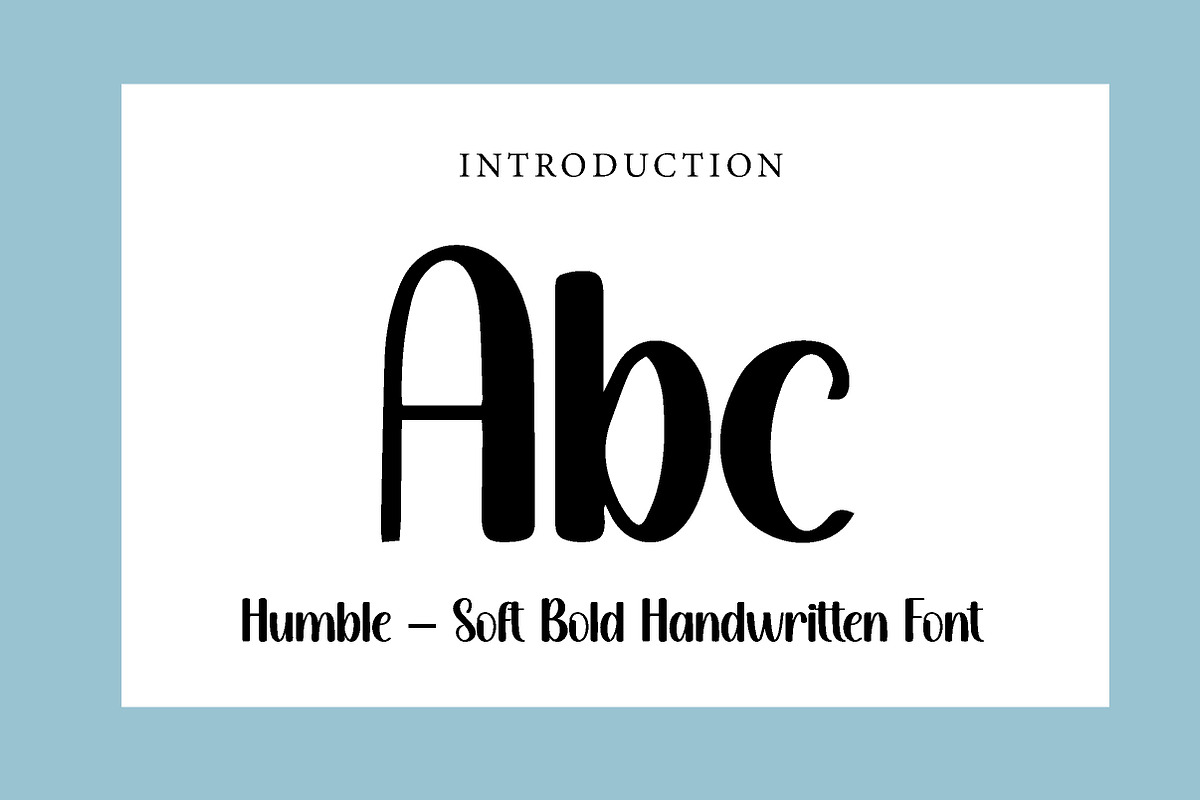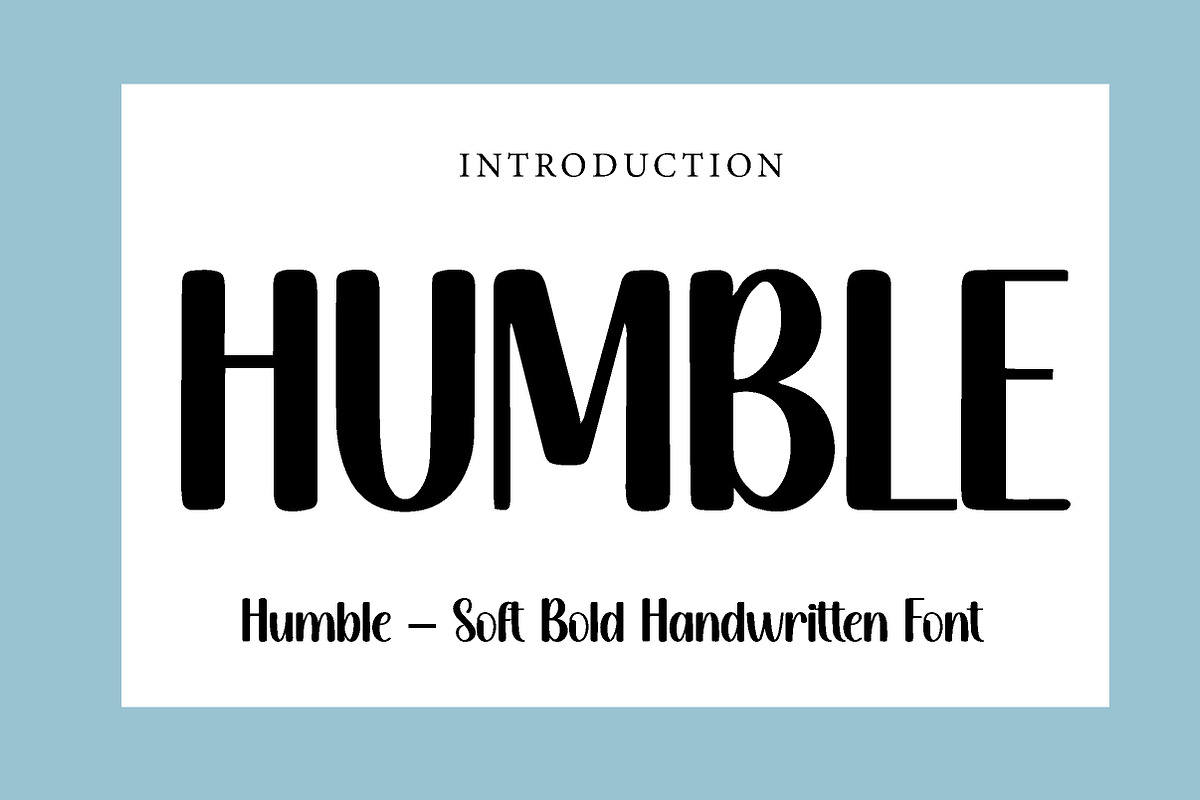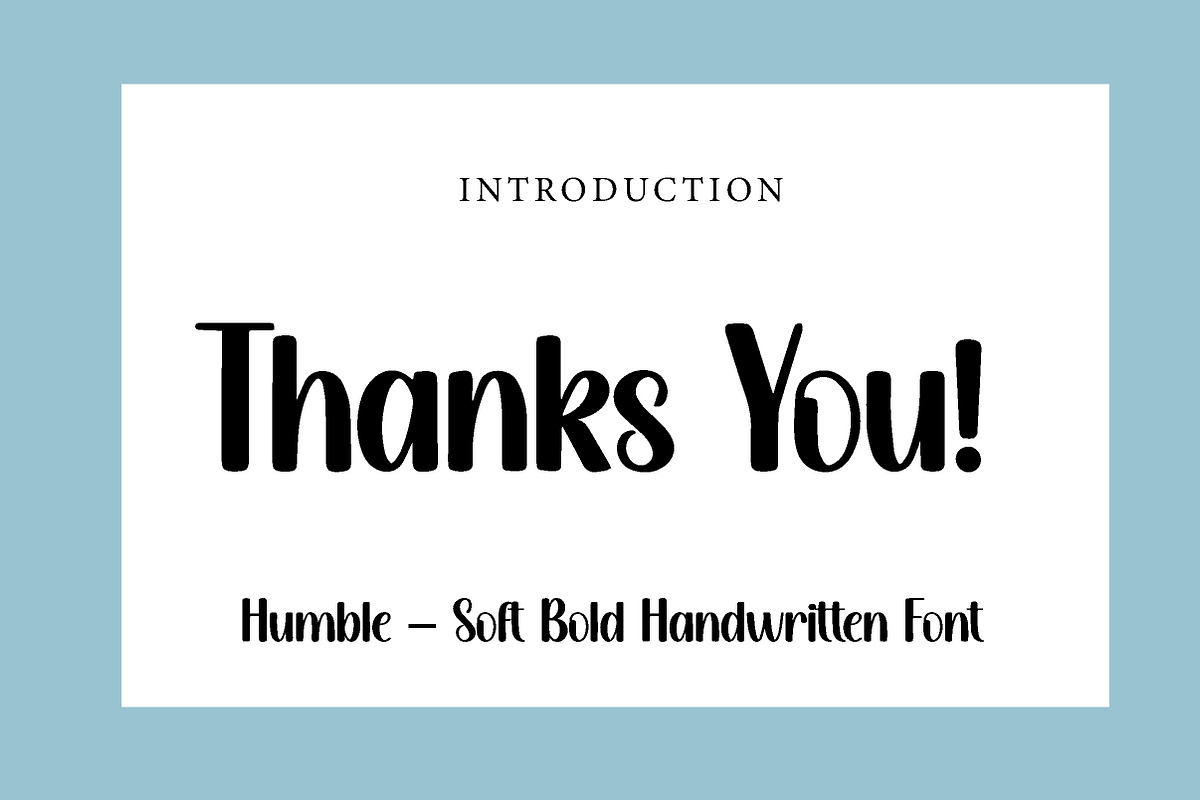
Humble
Humble – Soft Bold Handwritten Font
Humble is a soft, bold, and friendly handwritten font, perfect for branding, packaging, kids designs, social media, and warm creative projects.
Humble is a charming handwritten font designed to bring warmth, simplicity, and personality into your designs. With its thick strokes, rounded edges, and smooth flowing letterforms, this font creates a friendly and approachable look that feels both modern and playful.
Its soft bold style makes Humble a versatile choice for creative projects that need a clean yet expressive touch. Whether you are designing branding materials, product packaging, social media graphics, posters, invitations, kids-related designs, or logo concepts, this font helps your typography stand out in a warm and memorable way.
The rounded structure keeps the text easy to read while adding a handcrafted feel that makes every design more personal and inviting. Suitable for both print and digital use, Humble is a great choice for designers who want a font that feels soft, bold, and full of charm.